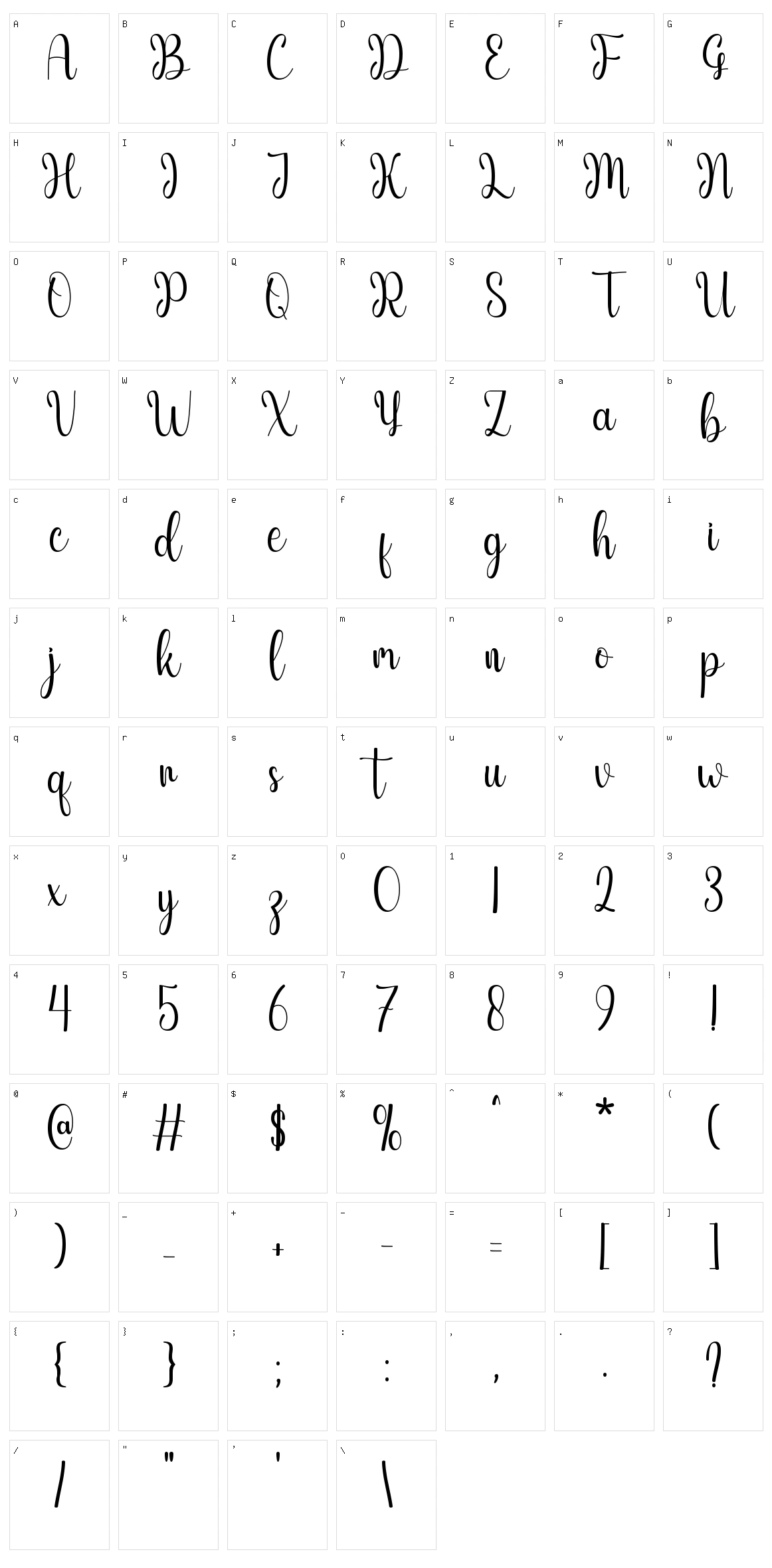
The free font Welcome is carefully designed by Hardiboy Design, showcasing a thoughtful balance of creativity and usability and falls under the Script font style. When you download the ZIP file, it contains only 21.75 KB of font files, making it lightweight and quick to download. Please review the license details below to understand permitted usage and distribution rights. If license information is not available, we recommend using this font for personal projects only or contacting the author directly for commercial usage permissions.